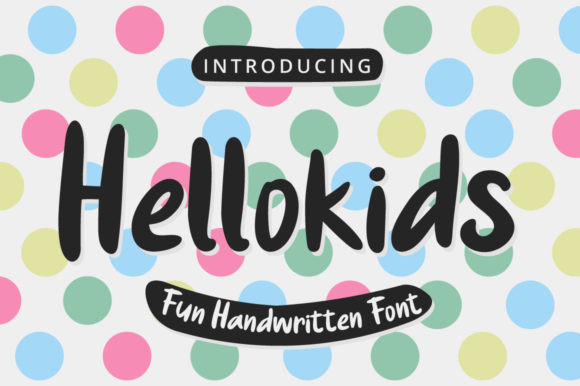
Hellokids Font
Hellokids is a bold display font with fresh & modern style. This font is perfect for adding a touch of fun to a wide-variety of creative projects!